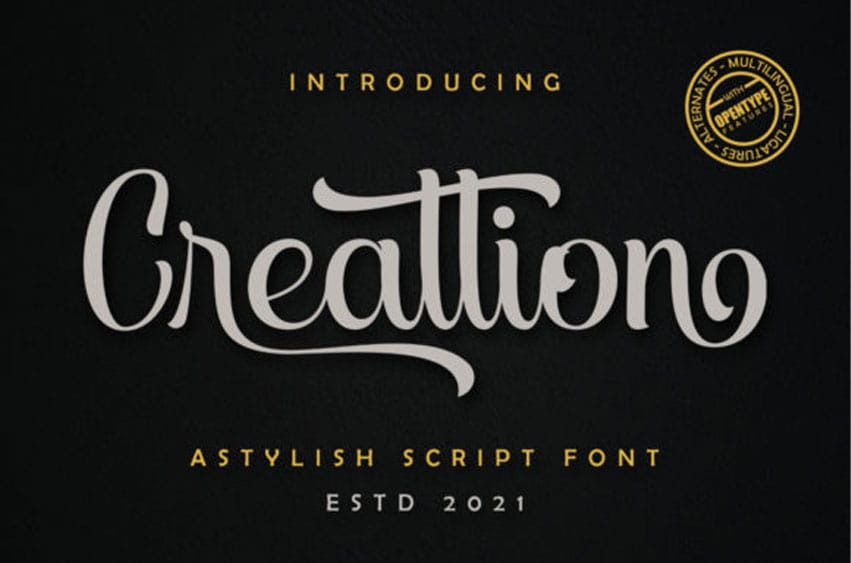
Creattion Script Font is a delightful and cursive handwritten font. This radiant font will look gorgeous on a variety of design ideas. It will add a refined and romantic touch to each of your projects!